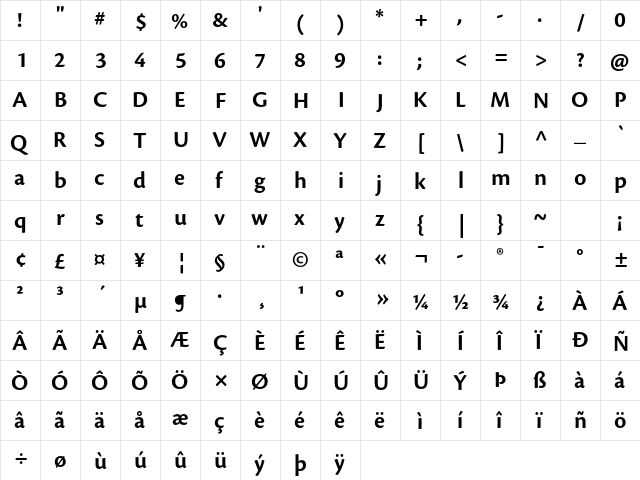
Cronos Pro Semibold Caption
Semibold Caption ·  Robert Slimbach ·
Design Context for Cronos Pro Typeface
Cronos Pro is a composed and adaptable typeface that performs quietly and consistently across a wide range of design contexts. Its bold stroke weight gives it real presence on the page.
Pro Tip: Pair Cronos Pro with a font of contrasting weight or personality to build a more expressive typographic hierarchy.